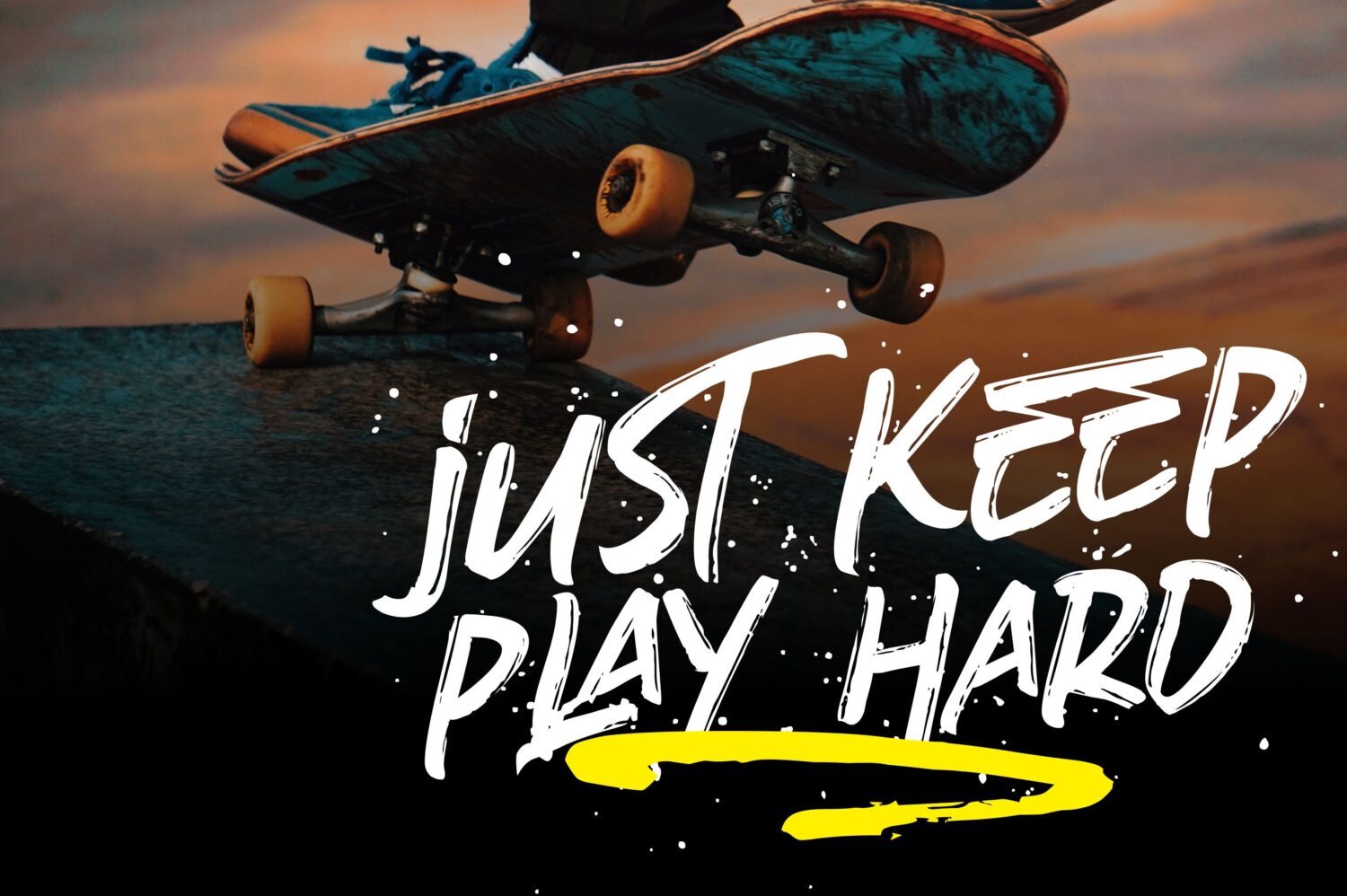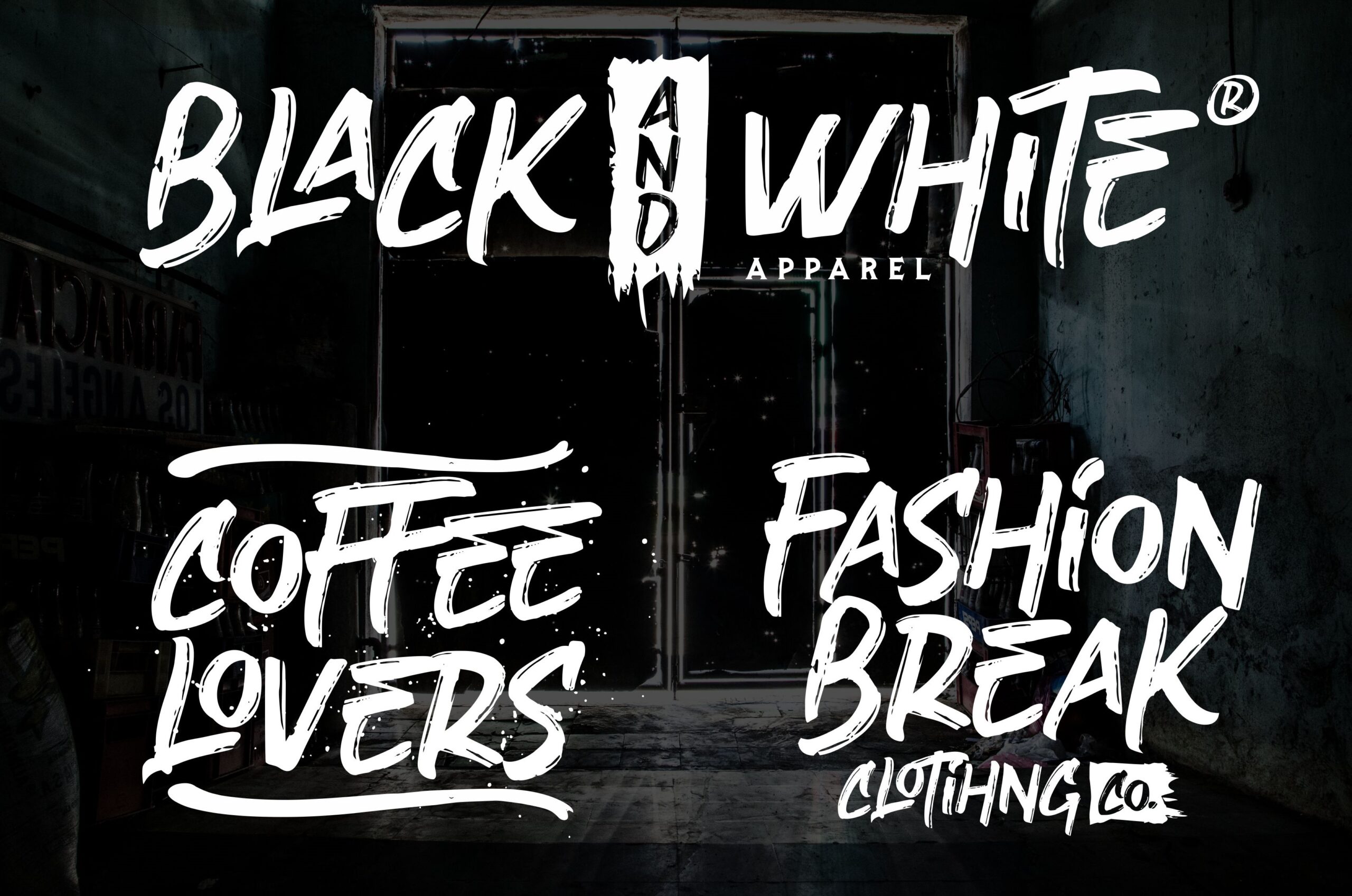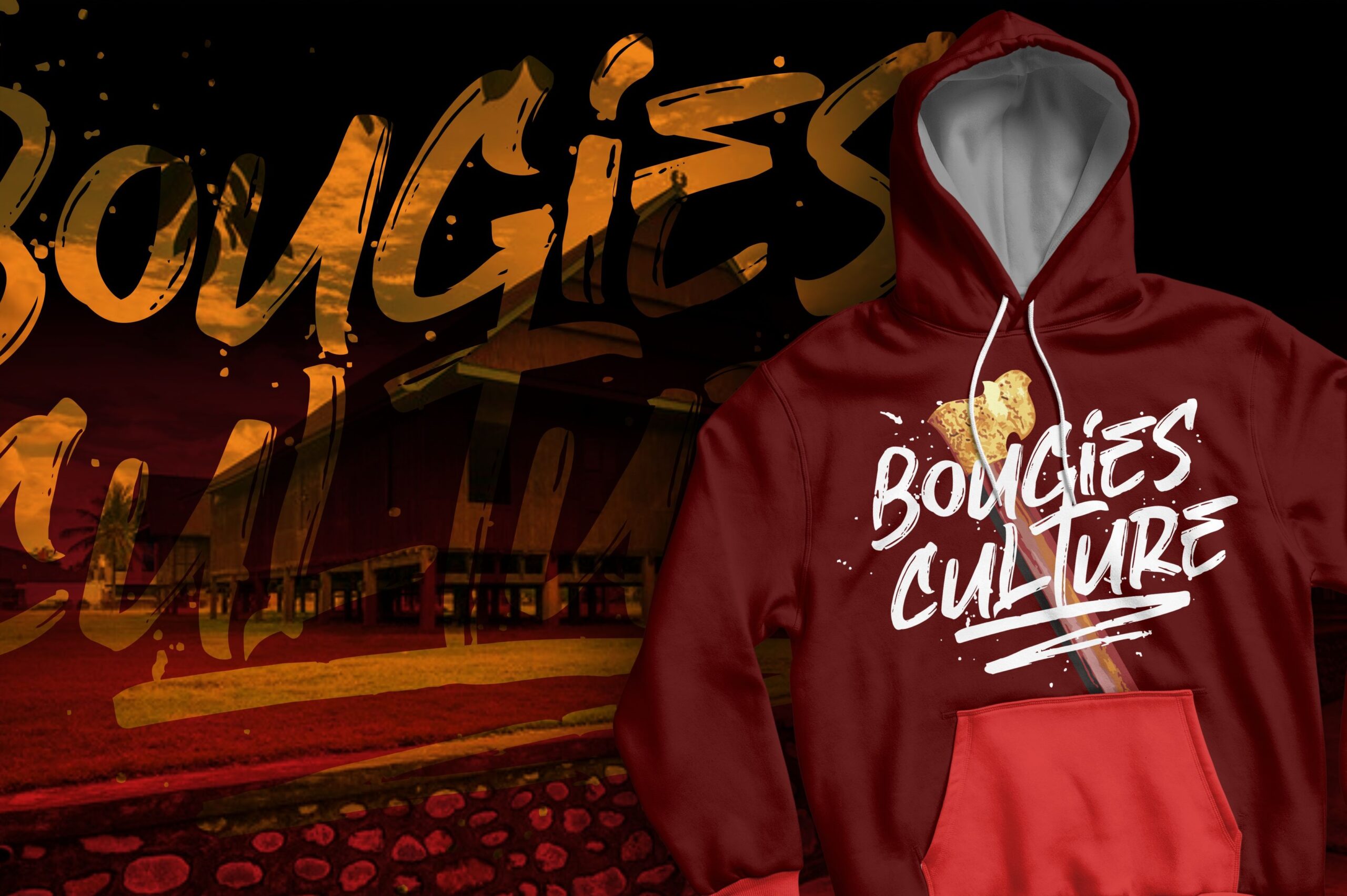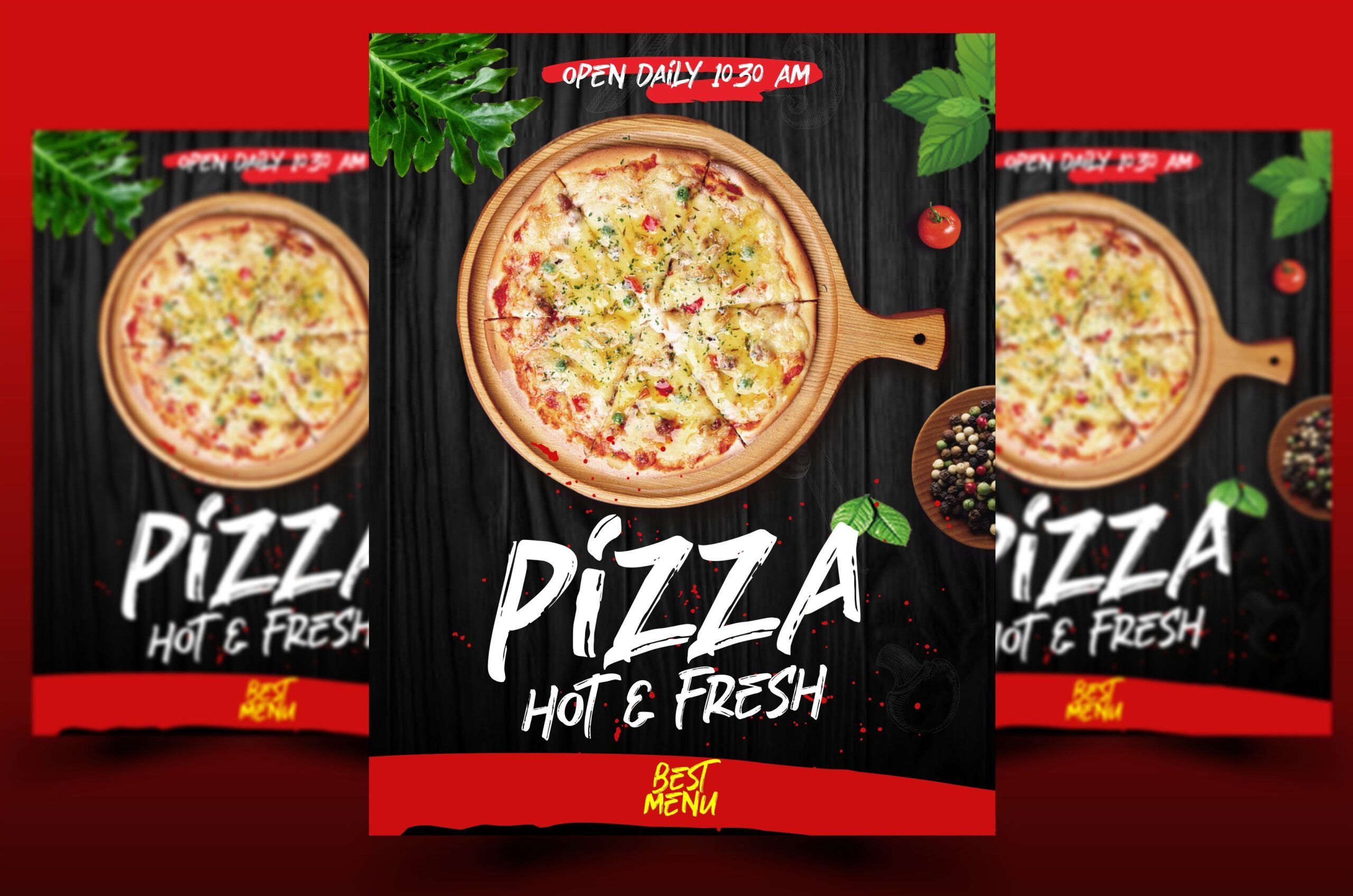
Grotters Free Font
Grotters Free Font is supercharged, With extra attention to quick strokes and sharp details, Grotters is ideal for logos, apparel, T-shirts, hoodies, quotes, product packaging, or anything that needs a typographic turbo-boost. and you’ll get a unique swash to accompany the font. This free typeface was designed by a talented Ergibi Studio. If you like it don’t forget to check out the full version.